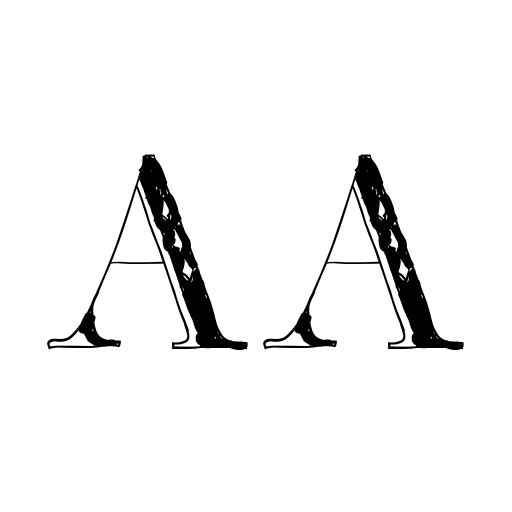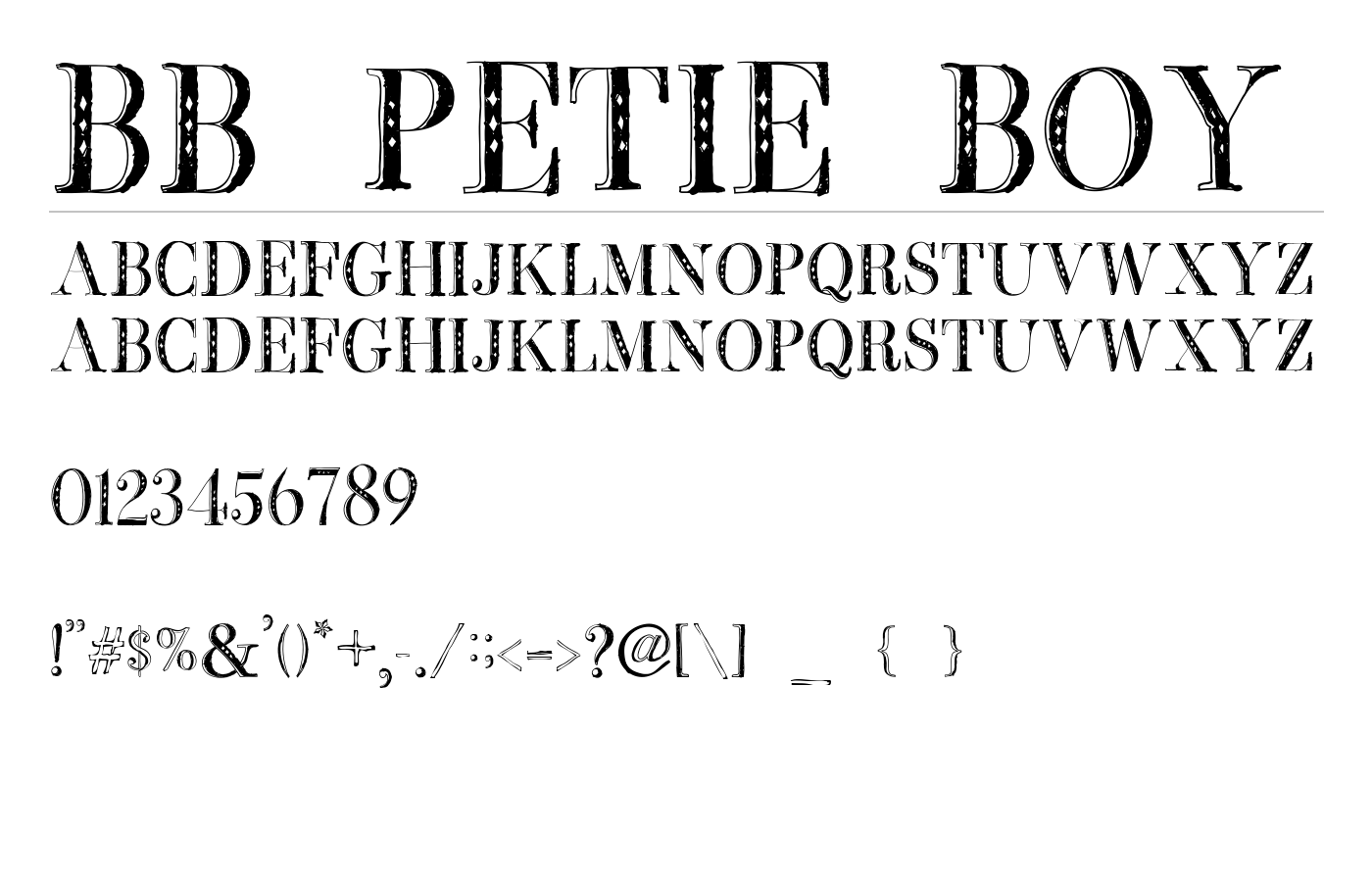
BB Petie Boy is a decorative serif font with a vintage, hand-crafted feel characterized by its high contrast strokes, slender proportions, and intricate textured detailing within each letter. Its elegant yet playful style, featuring sharp, thin serifs and a slightly condensed width, makes it ideal for eye-catching headlines, logos, and packaging that require a touch of old-world charm with artistic flair. This font works well when you want to convey creativity and uniqueness while maintaining a refined and distinctive appearance.
BB Petie Boy Font
About BB Petie Boy Font